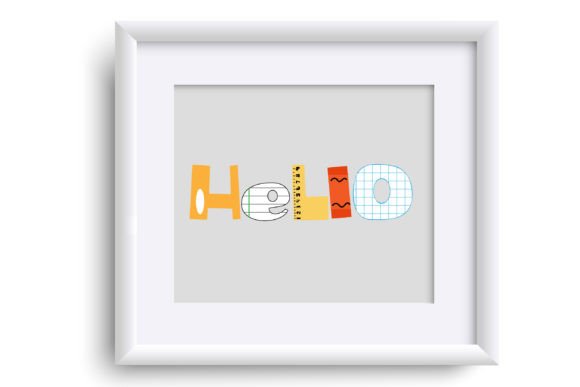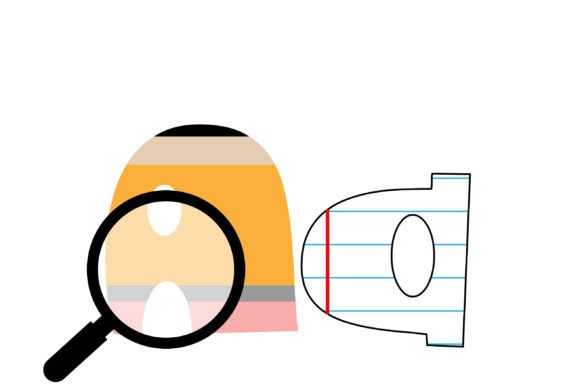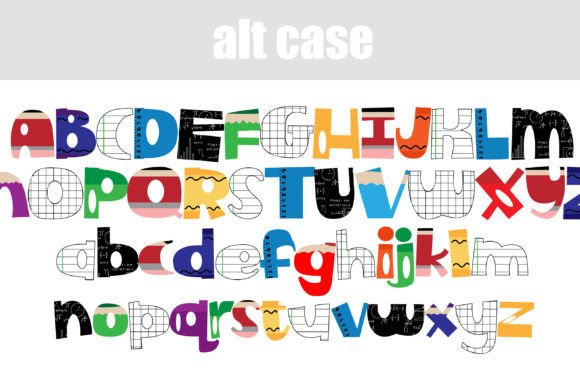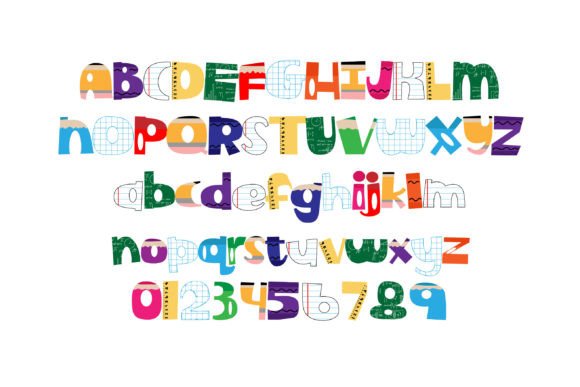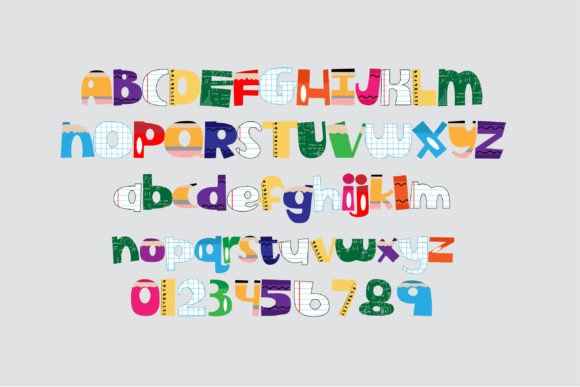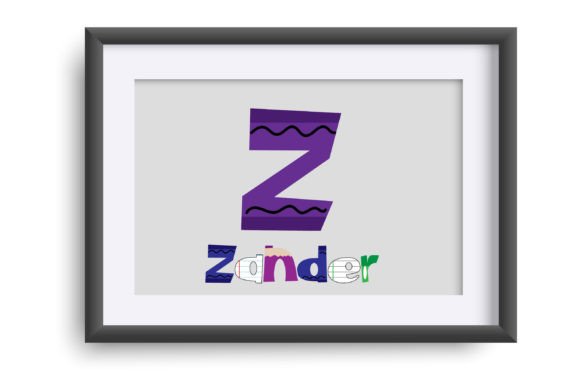
Introducing Educate Me Font: A Colorful and Creative Font for Designers and Crafters
Are you looking for a font that can add a touch of creativity and playfulness to your designs? Look no further than the Educate Me Font, a full-color font that features a unique and imaginative design with school supplies throughout. This font is perfect for designers and crafters who want to add a pop of color and personality to their work.
What Makes Educate Me Font So Special?
The Educate Me Font is a one-of-a-kind font that features a creative and colorful design. The font includes a range of school supplies, such as pencils, books, and rulers, that are woven throughout the letters and characters. This font is perfect for creating eye-catching titles, displays, posters, and more.
Alt Case and Color Options
One of the best features of the Educate Me Font is the alt case, which includes additional colors that can be accessed through your system’s character map. This allows you to customize your designs even further and add an extra level of creativity to your work. The font also includes a range of color options, making it perfect for designers who want to add a splash of color to their designs.
Benefits of Using Full-Color SVG Fonts
The Educate Me Font is perfect for designers and crafters who want to add a touch of creativity and personality to their work. Whether you’re creating posters, flyers, or social media graphics, this font is sure to make your designs stand out. The font is also perfect for crafters who want to add a personal touch to their projects, such as scrapbooking or card making.
In conclusion, the Educate Me Font is a unique and creative font that is perfect for designers and crafters. With its colorful design and range of school supplies, this font is sure to add a touch of personality to your work. Whether you’re creating posters, flyers, or social media graphics, this font is sure to make your designs stand out. So why not give it a try and see what amazing designs you can create?